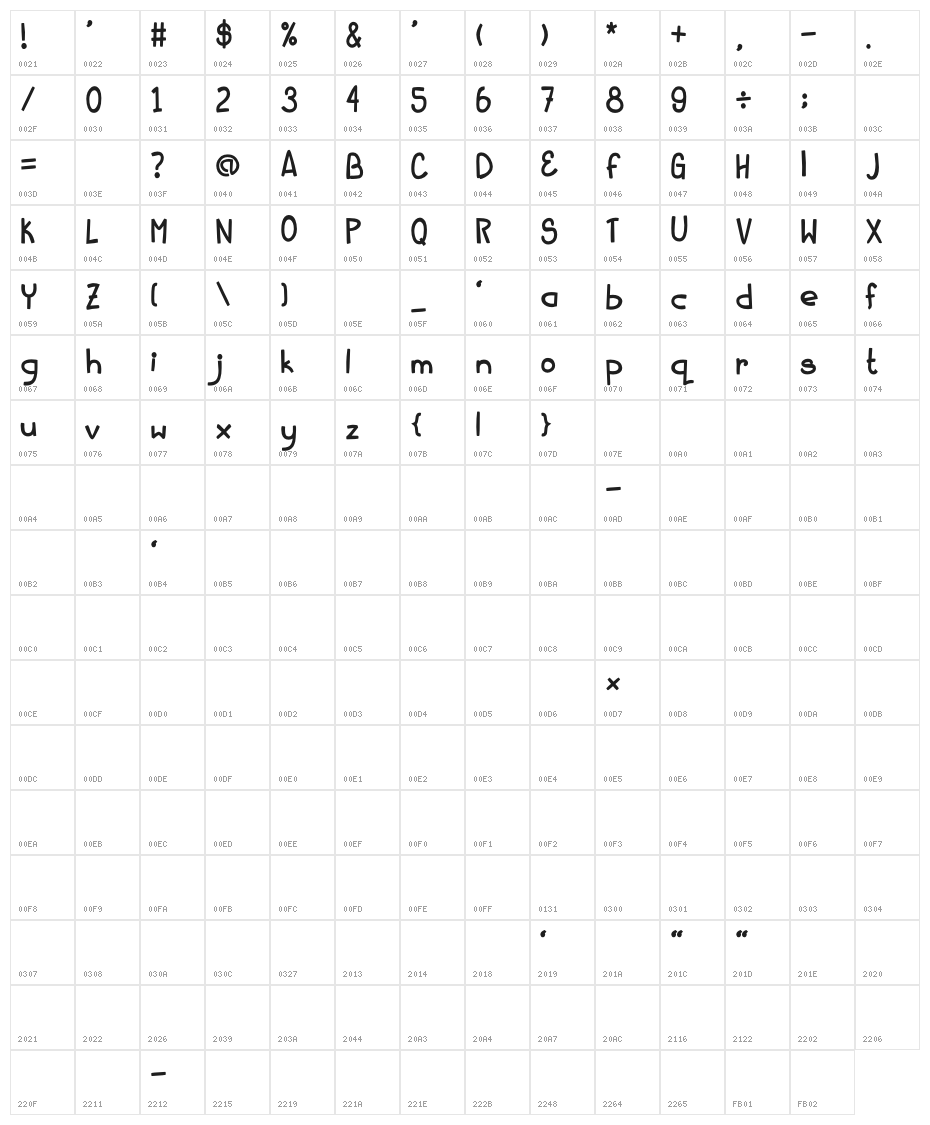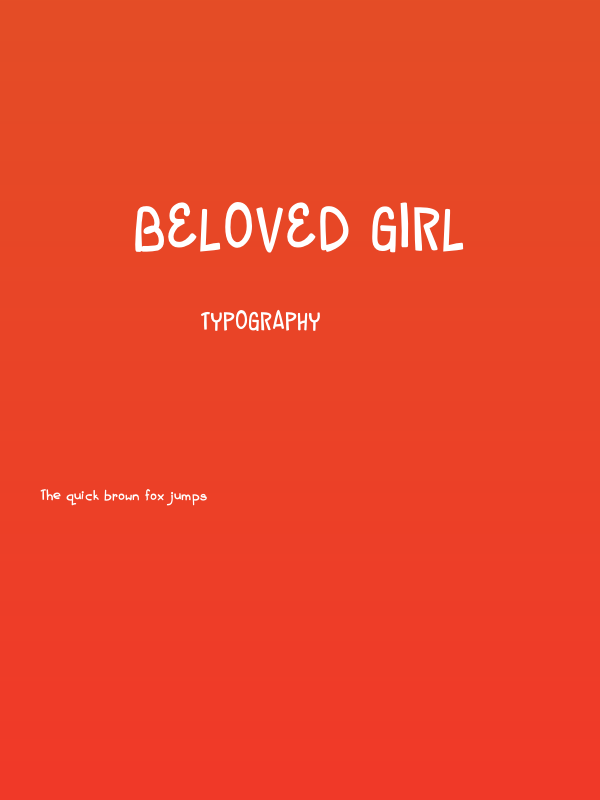
Beloved Girl Font
Beloved Girl Description
This playful and whimsical font features bold, rounded characters with a hand-drawn aesthetic. The letters are slightly irregular, giving a casual and friendly feel. The uppercase and lowercase letters maintain a consistent style, with smooth curves and a uniform thickness. Numbers and special characters are equally expressive, enhancing the font's overall charm. The font's design is approachable and fun, making it ideal for projects that require a touch of personality and warmth.
| Proposed Projects | Ideal for children's books, greeting cards, playful branding, and casual invitations. |